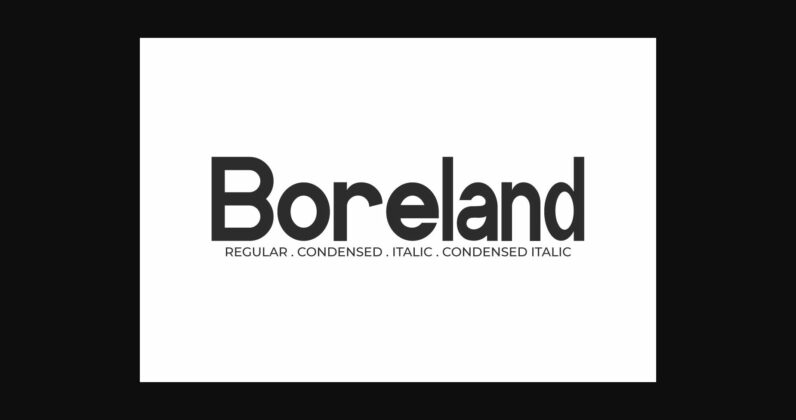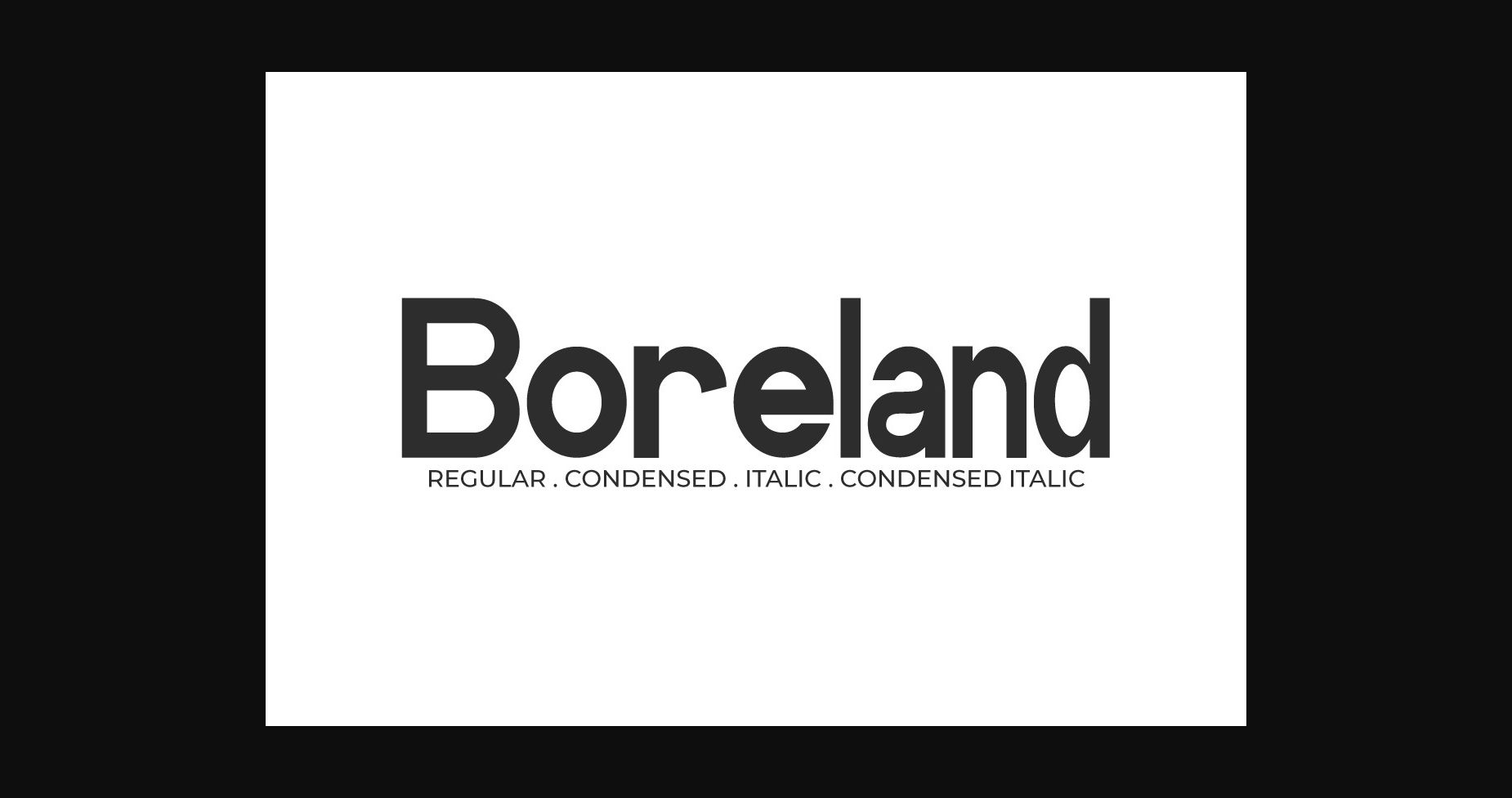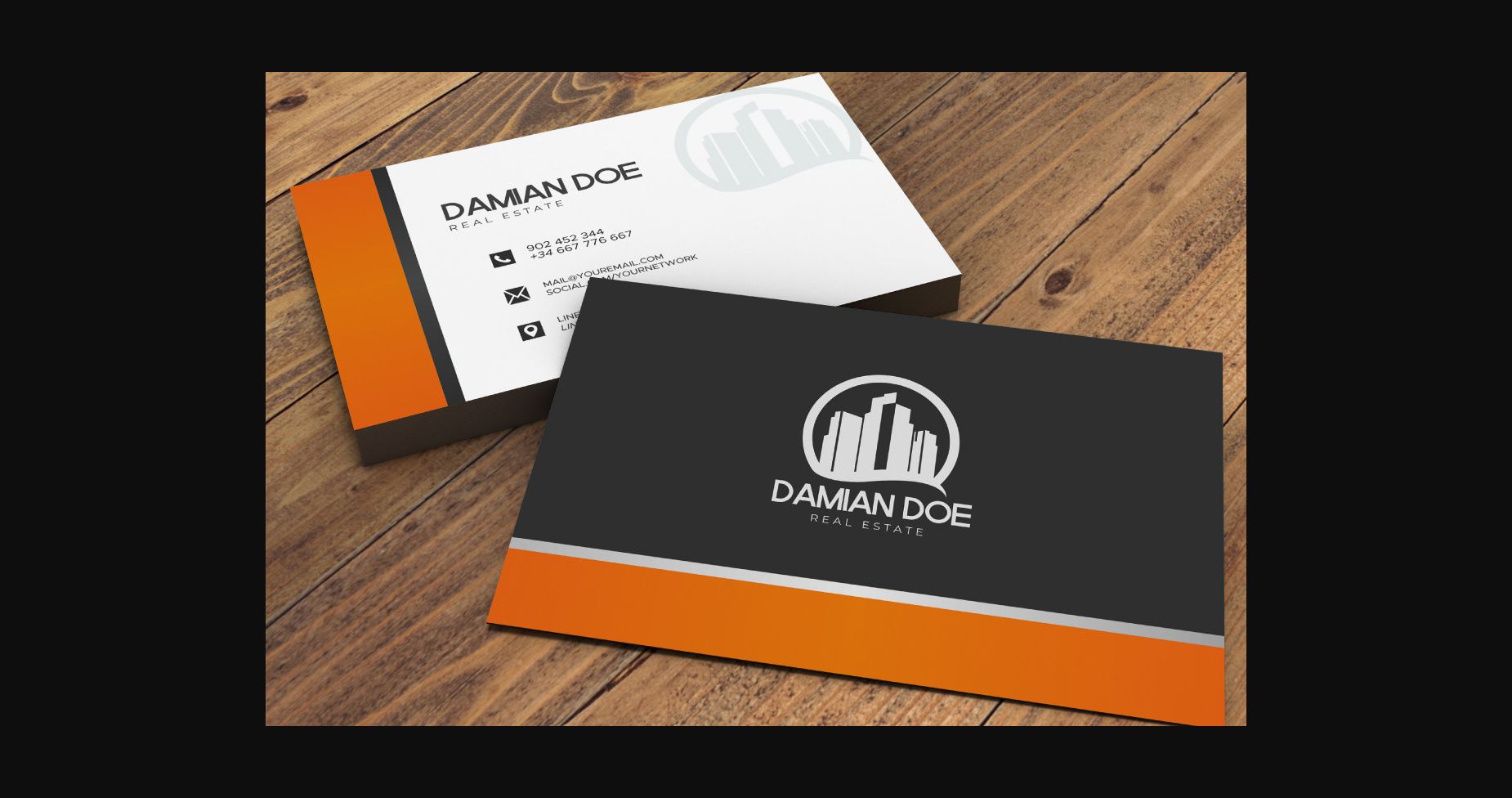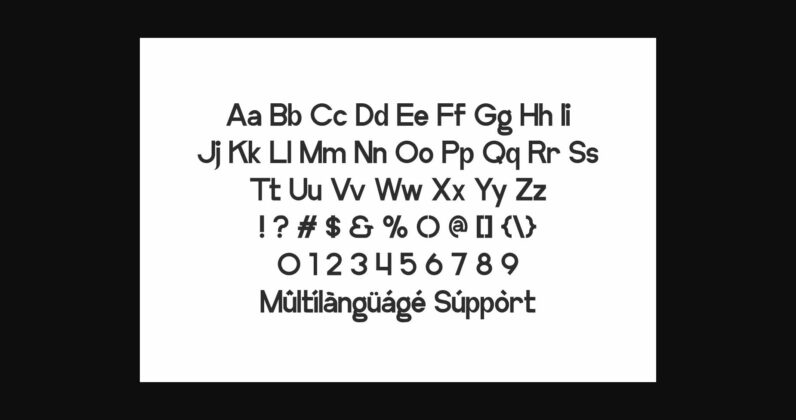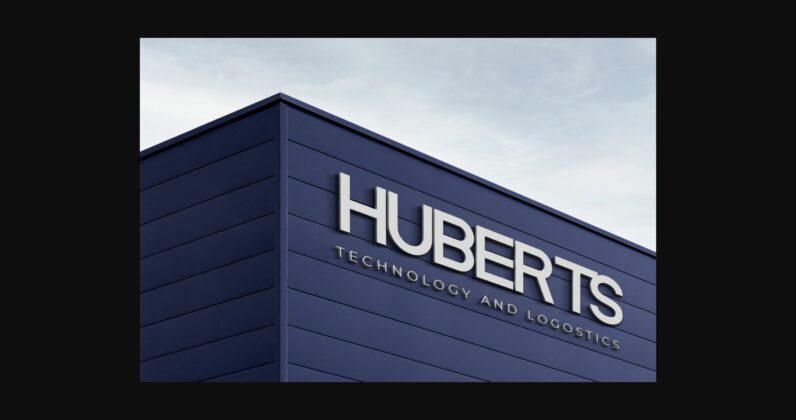
Boreland Font
About Boreland Font
Boreland is a bold and beautiful sans serif font suitable for a wide pool of creative projects such as clothing, films, food, beverage, games, magazines, real estate, signage, technology, websites, business cards, logo branding, product packaging, signage, various printing materials, and more!